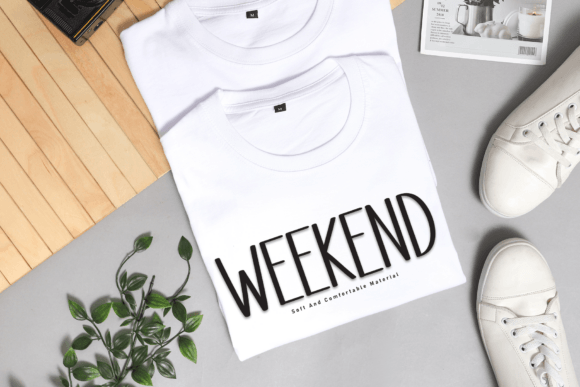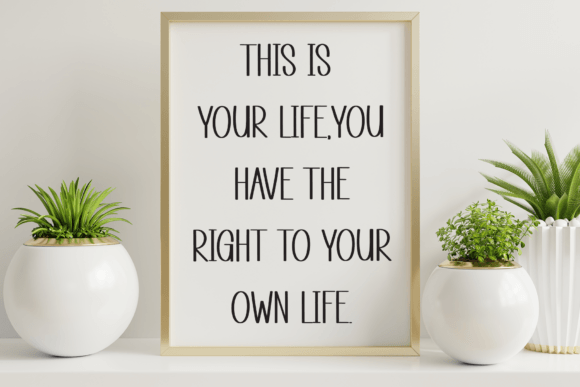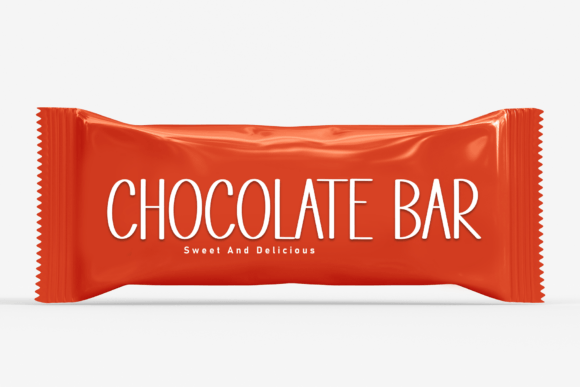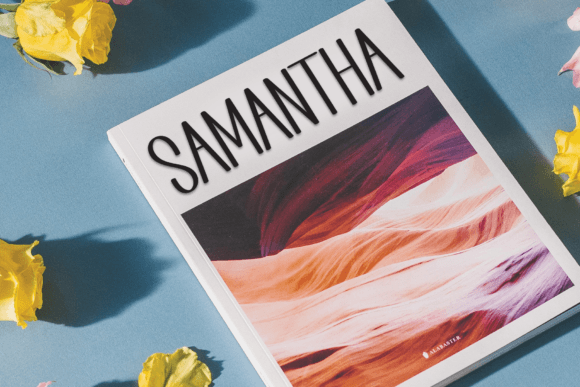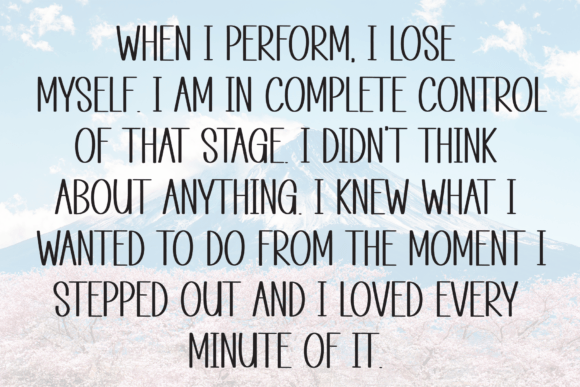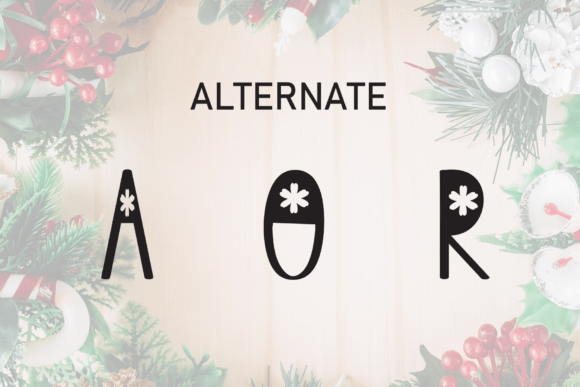
Introduction to Santa Flower Font Font
Fonts play a crucial role in design, and the Santa Flower Font font is a typeface that brings both character and versatility to any project. Whether you’re working on a branding project, a website, or a print design, the Santa Flower Font font offers a unique style that can elevate your work.
Welcome to the aesthetically charming world of our warm, handwritten display font.
This endearingly sweet script evokes an amiable and inviting aura, infusing a delightful touch to your creations From bewitching wedding invitations to charming greeting cards, its whimsical elegance is designed to breathe life into your designs.
Key Features of Santa Flower Font Font
Why Choose Santa Flower Font Font?
The Santa Flower Font font is more than just a typeface – it’s a design tool that helps you communicate your message with style and clarity. Its unique character set and versatile design make it suitable for a wide range of applications, from elegant invitations to bold headlines.
With its carefully crafted letterforms and balanced proportions, the Santa Flower Font font ensures readability and visual appeal across all mediums.
What makes Santa Flower Font font special?
The Santa Flower Font font stands out with its unique design, exceptional readability, and versatility across various design applications.